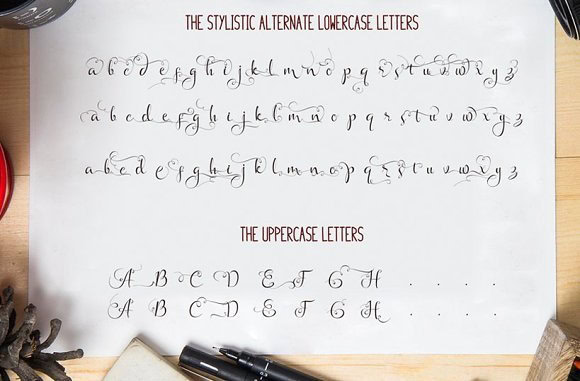
cobully
Cobully Font is a stylish typeface available in OTF, TTF, and WOFF formats, perfect for creative designs, branding, and modern projects.
Unleash Creativity with Cobully Font
Cobully Font, crafted by talented designer Alex Smith in 2023, is a unique typeface that blends modern aesthetics with impactful styles. Ideal for graphic design projects, branding, and digital artwork, Cobully captures attention while conveying a sense of personality and originality.
The Inspiration Behind Cobully Font
Inspired by contemporary design trends, Cobully Font brings a playful yet sophisticated flair to typography. Alex Smith drew from diverse influences to create a font that makes a statement, suitable for both digital and print mediums. This unique typeface stands out with its bold lines and dynamic curves.
Versatile Applications for Cobully Font
Cobully Font is perfect for a variety of applications, including logo design, product packaging, posters, and social media graphics. Whether you’re designing for web or print, this font’s stylish appearance makes it a versatile addition to any designer’s toolkit.